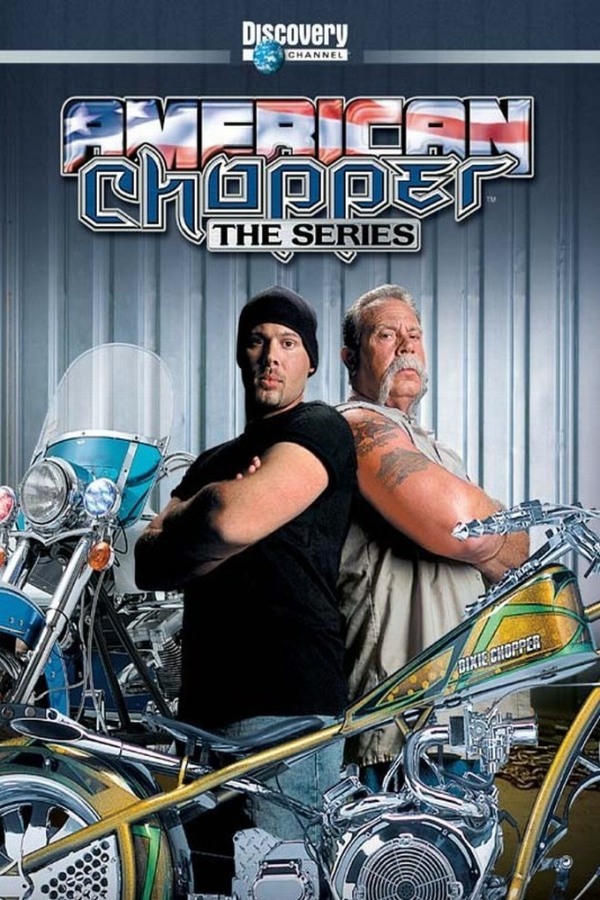
American Chopper Font
Fonts in UseAmerican Chopper is a reality television show that aired on Discovery Channel from 2003 to 2010, and then on TLC from 2018 to 2020. The show featured the Teutul family and their custom motorcycle business, Orange County Choppers, and documented the process of building unique motorcycles for clients.
The American Chopper logo incorporates two distinct fonts. The "AMERICAN" portion features a square sans-serif font that resembles ITC Bolt, while the "CHOPPER" portion is similar to Indochine, which can be downloaded for free from the Fonts Used Section.